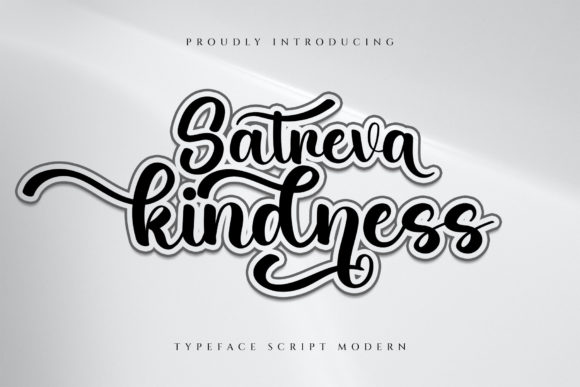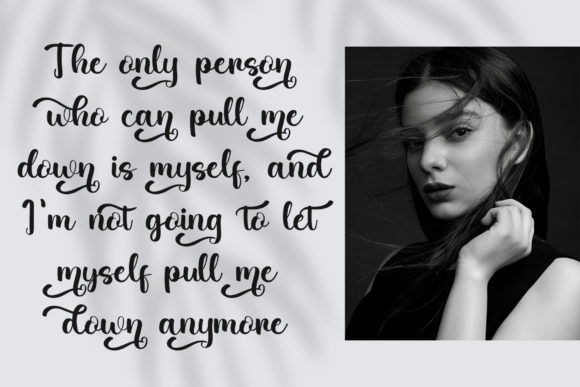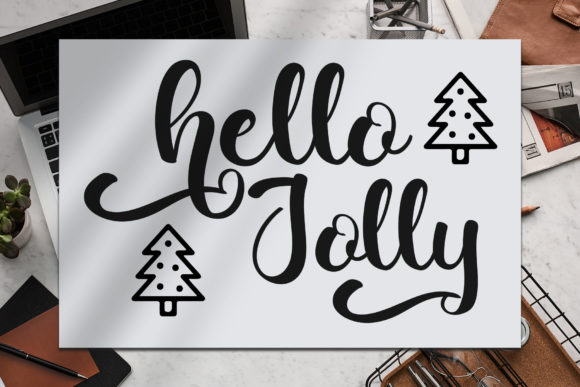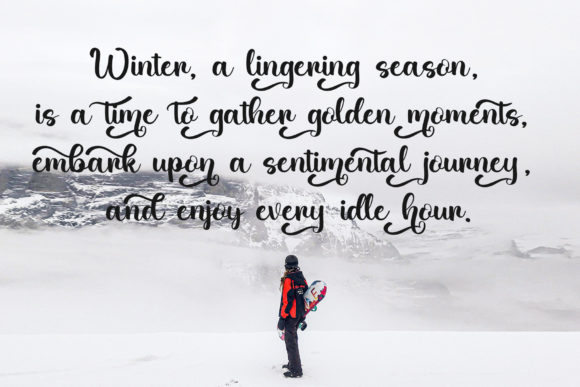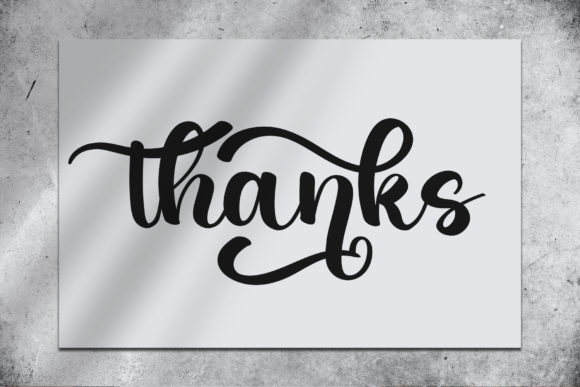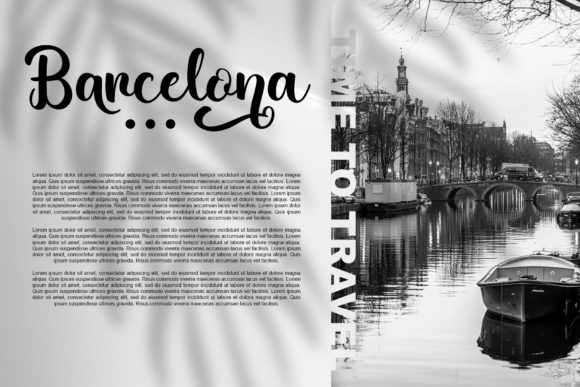
Satreva Kindness Font
About Satreva Kindness Font
Satreva Kindness is a romantic and sweet calligraphy typeface with characters that dance along the baseline. It will add a luxury spark to any design project that you wish to create!